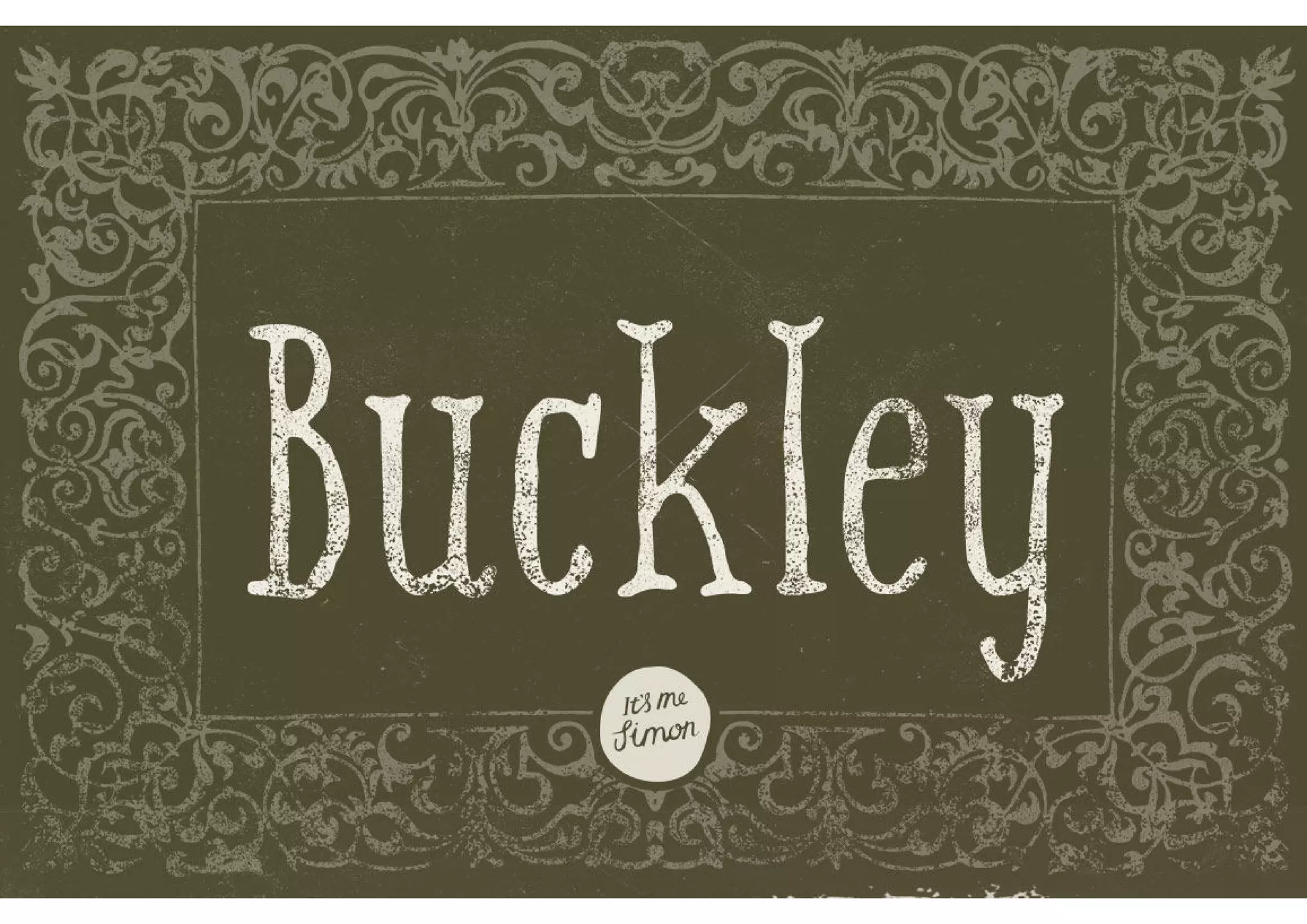
My new font Buckley http://simonstratford.com/buckley/ Hand-drawn with a copic pen on paper! With its unsteady lines, Buckley will give your work an informal look and feel while retaining a little bit of that french style.